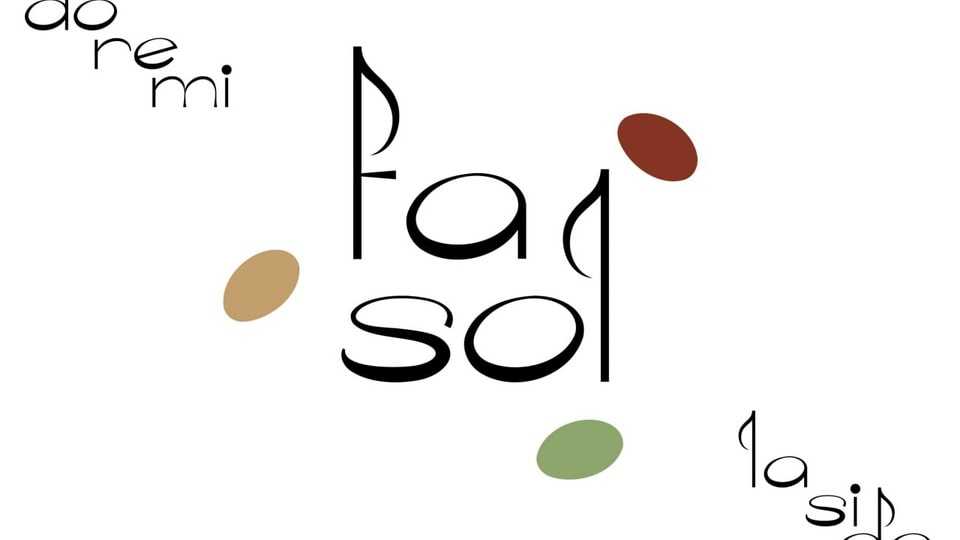
Download Fasol SP font, an experimental decorative typeface with elements of calligraphy, ancient culture writing and musical notation.
Designer: Sasha Pavljenko